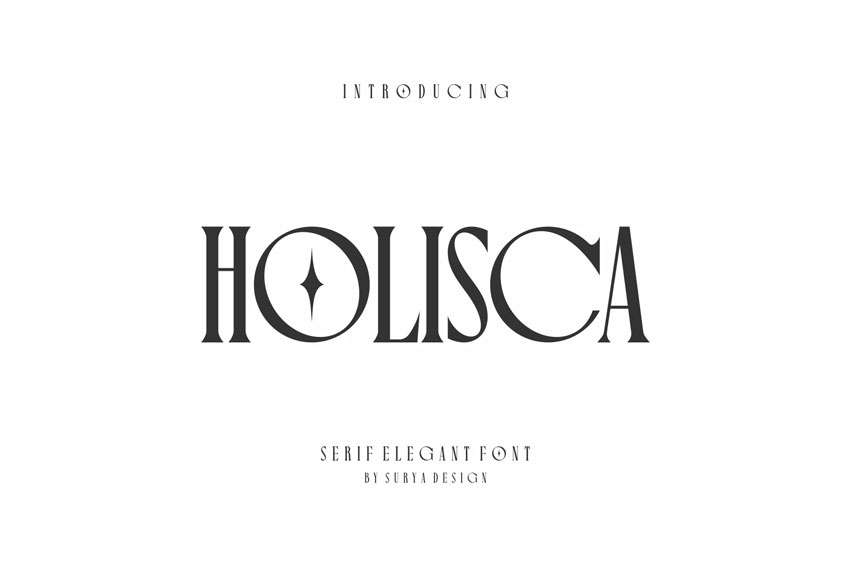
Holisca Font
Holisca Font Modern Font is a bold and authentic display font. The font is suitable for any branding project, like logos, esport, and many more.